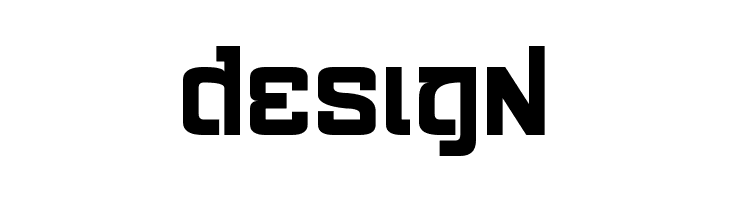
Domotika Trial Medium Font
- Font: Domotika Trial Medium
- Weight: Heavy
- No. of Characters:: 540
A bold, geometric font with a modern and assertive style.